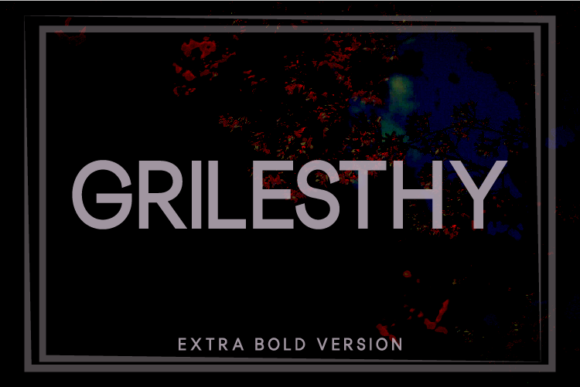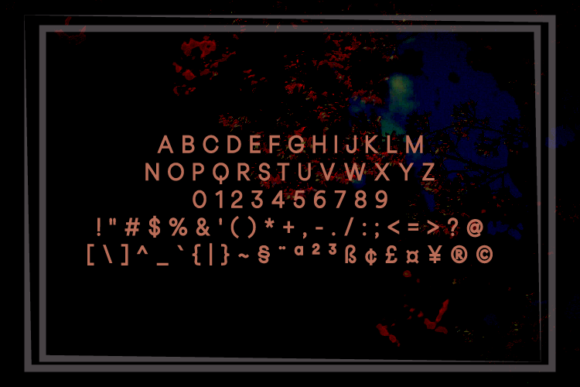
About Grilesthy Extra Bold Font
Grilesthy is a modern and casual font with an incredibly friendly feel. This fantastic sans serif font is best suited for headlines of all sizes, as well as for blocks of text that have both maximum and minimum variations.
Grilesthy comes with 10 different weights ranging from thin to extra black versions and is sold separately so that you can choose the weight that suits your design/project best.